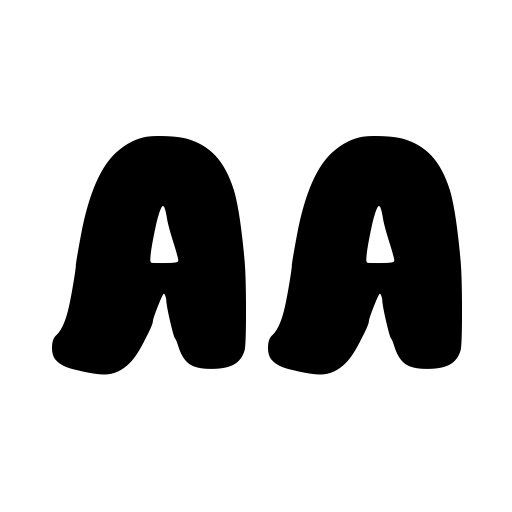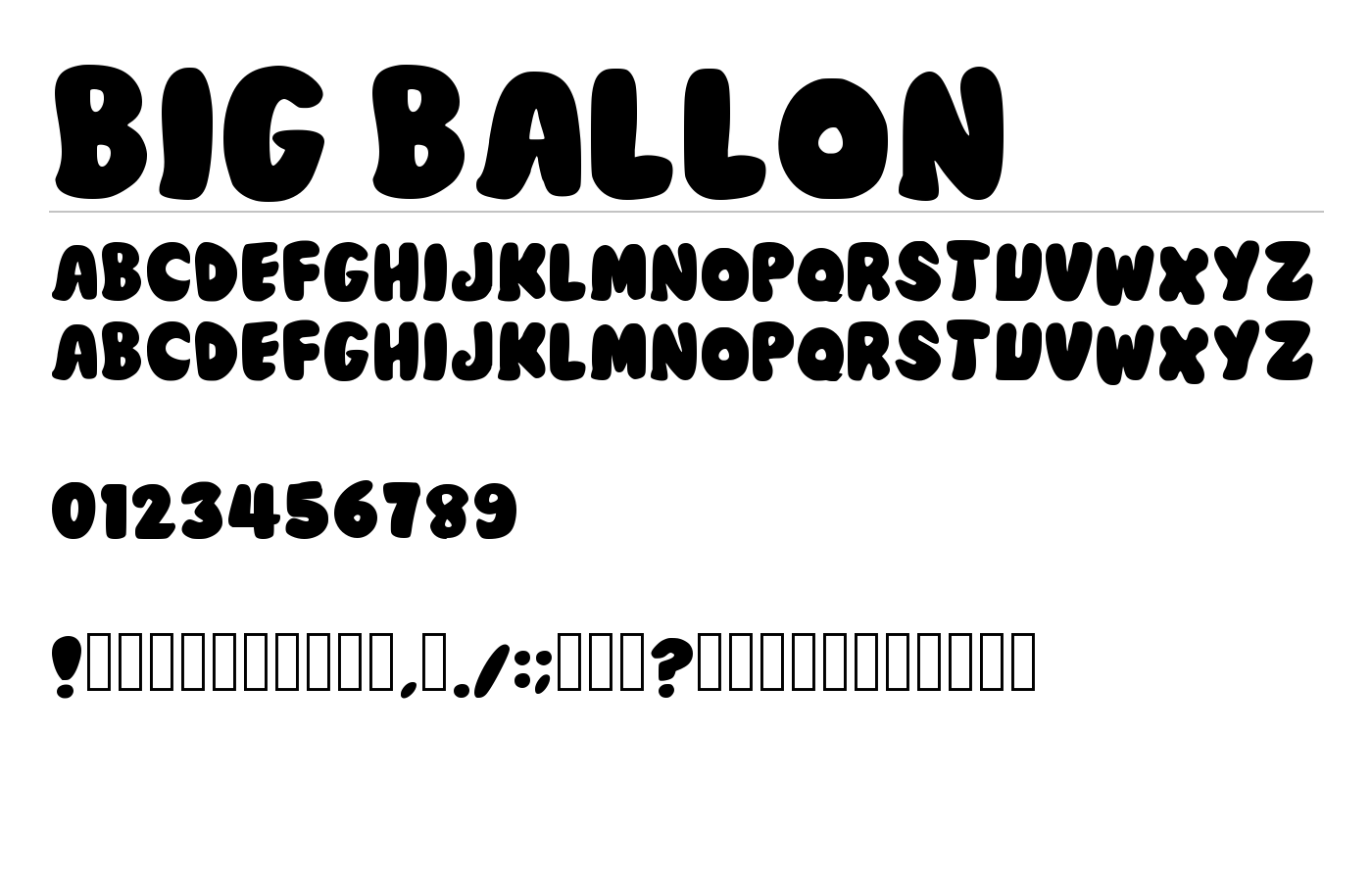
Big Ballon is a playful, bold sans serif font with soft, rounded edges that give it a bubbly and fun character. Its thick, wide letterforms have a casual, hand-drawn feel perfect for creative projects aimed at children or any lighthearted, informal branding. This font works wonderfully in logos, posters, and headlines where a cheerful and approachable vibe is desired.
Big Ballon Font
About Big Ballon Font